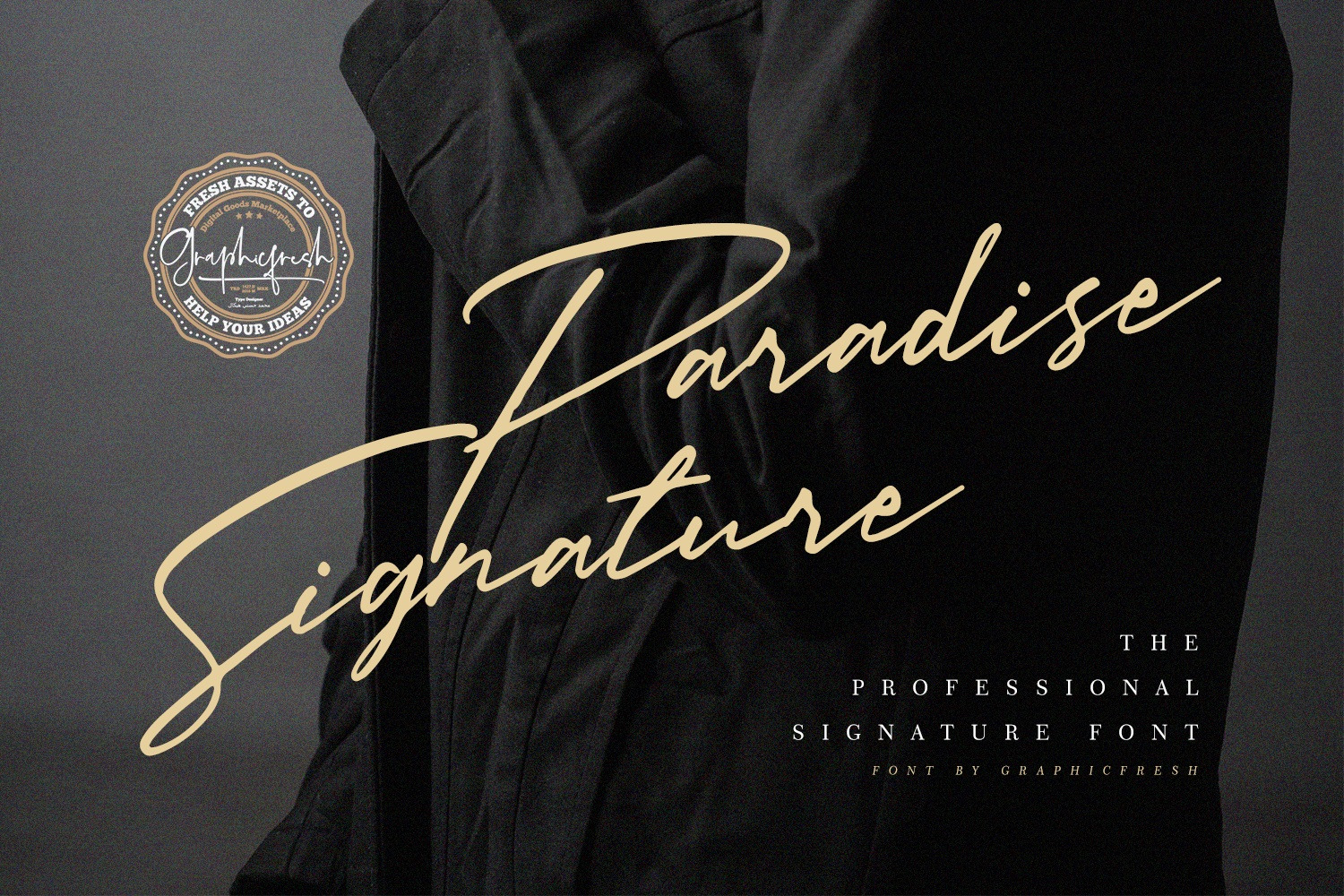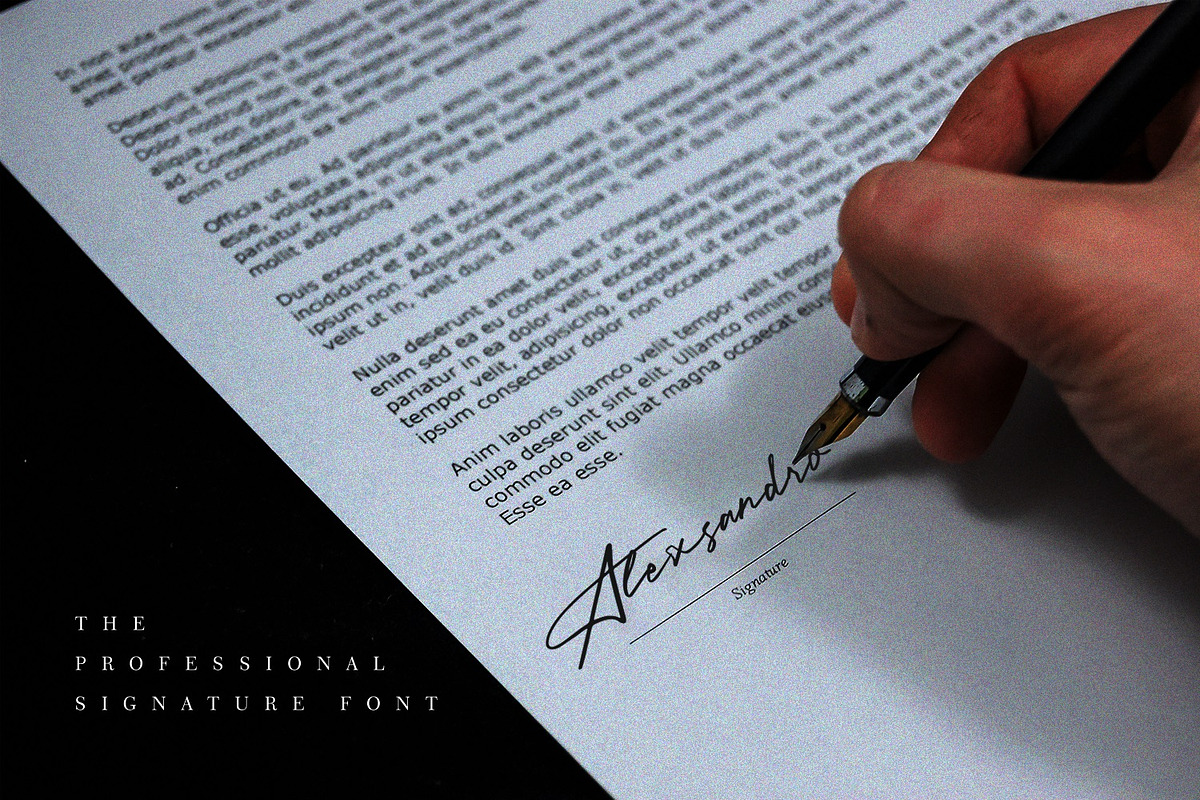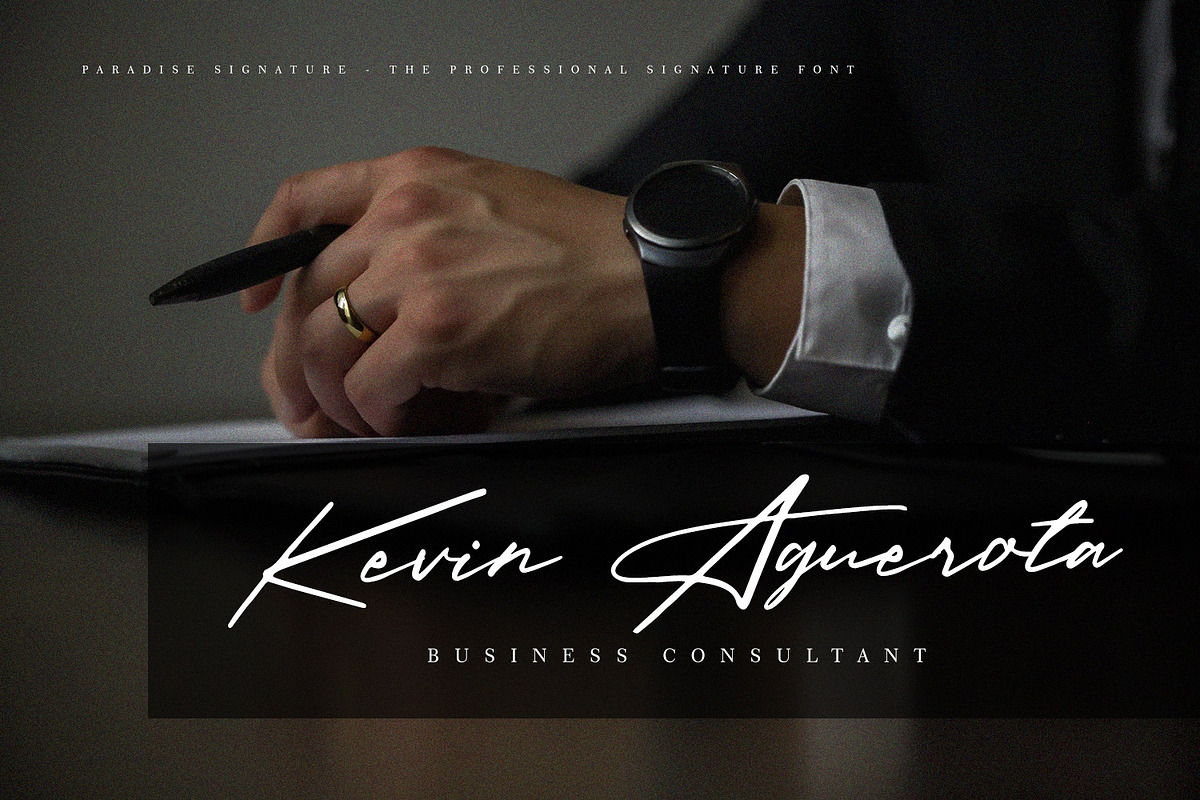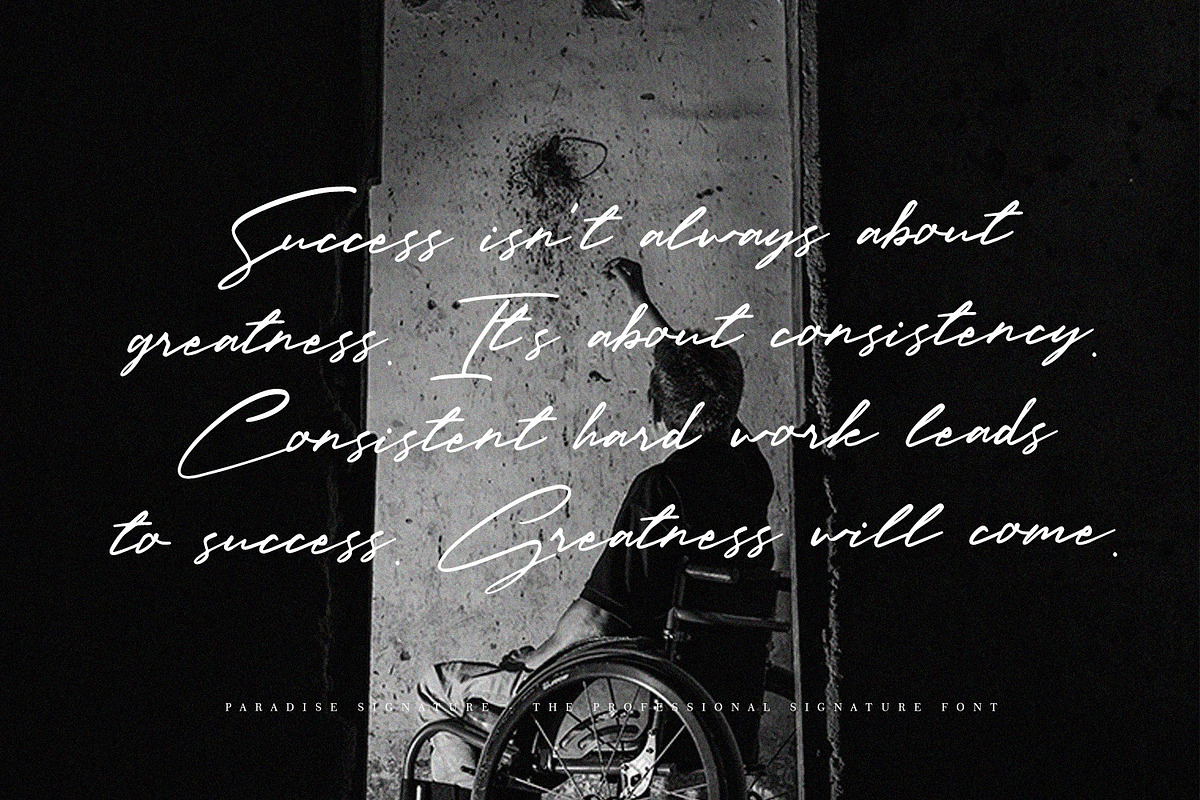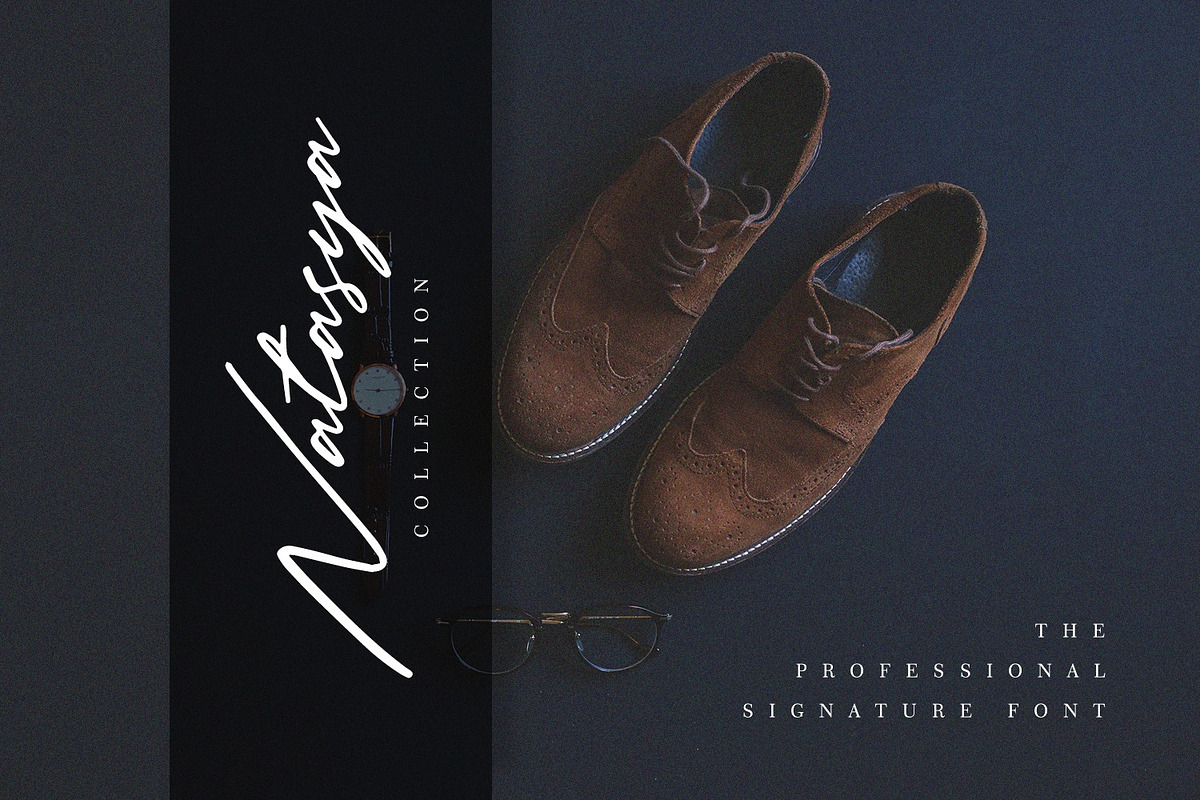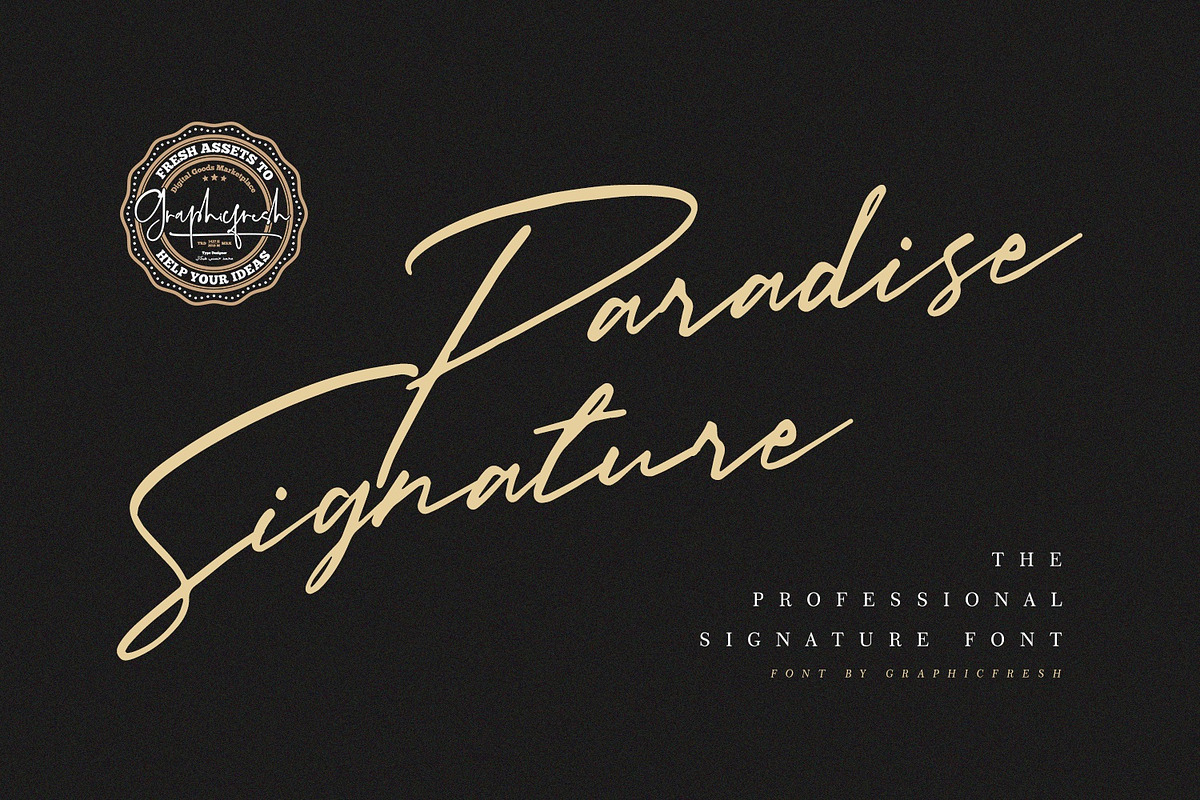
Paradise Signature Font
Many things I tried to make a signature. Until I get inspired to make a brush in Procreate, then I make this font using that brush. So, this font is very thick with the original signature style, so you will be amazed to see it. Congratulations on collecting this font.
Paradise Signature Font - The professional Signature script and unique character! it's perfect for logos, name card, magazine layouts, invitations, headers, or even large-scale artwork.